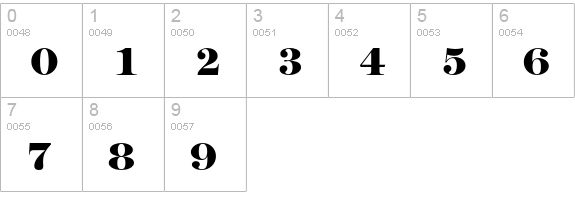
ModernNo216EF-Heavy is a heavy, high-impact variant in the ModernNo216EF typeface family \xE2\x80\x94 well suited to high-impact headlines, posters, and display advertising.
ModernNo216EF-Heavy font is a bold and sleek typeface that exudes modernity and sophistication. With its strong, thick lines and sharp edges, this font is perfect for making a bold statement in your designs. Whether you're creating posters, logos, or branding materials, ModernNo216EF-Heavy will make your text stand out. Best of all, this fantastic font is available for free download at FontsMarket.com. Simply head over to the website to access this stylish typeface and add a touch of contemporary flair to your projects. Download ModernNo216EF-Heavy today and elevate your design game with this eye-catching font.